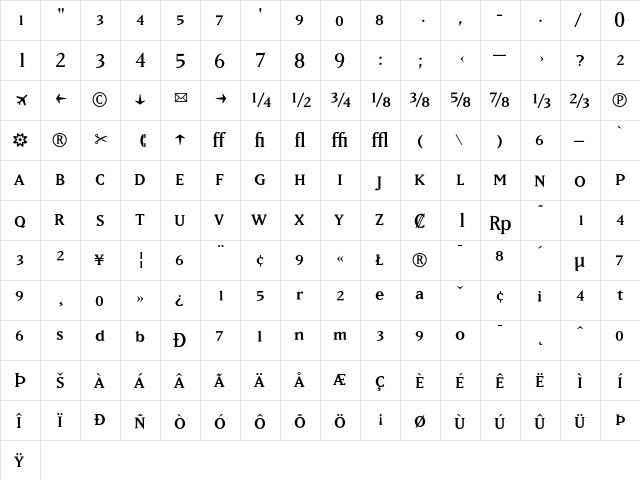
MatrixRegularFractions Regular
Design Context for MatrixRegularFractions Typeface
MatrixRegularFractions is a composed and adaptable typeface that performs quietly and consistently across a wide range of design contexts.